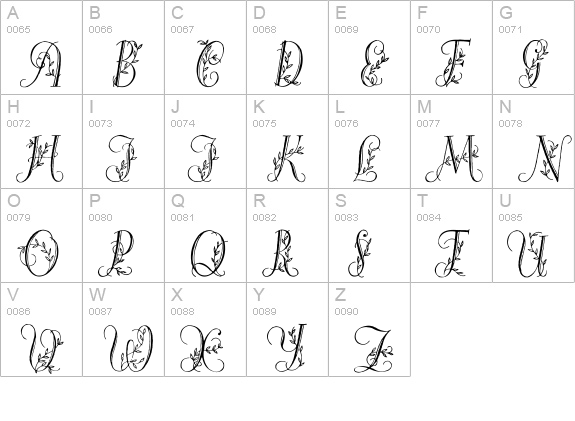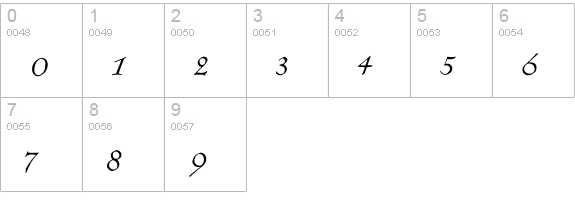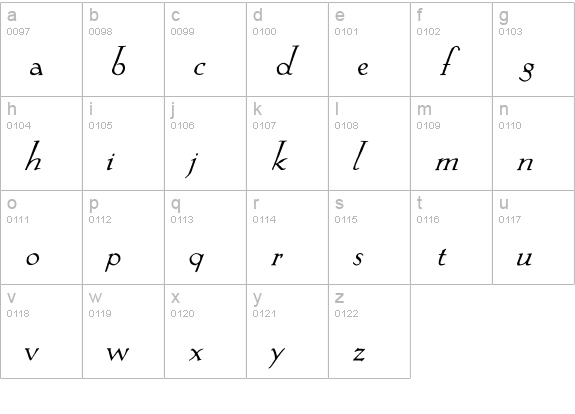
Springtime Flourish Font Details
Introducing Springtime Flourish font, a whimsical and enchanting typeface that embodies the beauty and vibrancy of spring. With delicate swirls and elegant flourishes, this font captures the essence of new beginnings and fresh possibilities. Each letter exudes a sense of playfulness and charm, making it perfect for adding a touch of whimsy to your designs. Springtime Flourish font is the ideal choice for invitations, greeting cards, logos, and more. Its versatility allows it to be used in a variety of projects, from branding to social media graphics. Whether you're creating a romantic wedding invitation or a cheerful springtime poster, this font will elevate your designs to new heights. Best of all, Springtime Flourish font is completely free to download at FontsMarket.com. Now you can add a touch of springtime magic to your projects without breaking the bank. Don't miss out on this opportunity to enhance your designs with the beauty and charm of Springtime Flourish font. Download it today and let your creativity flourish!